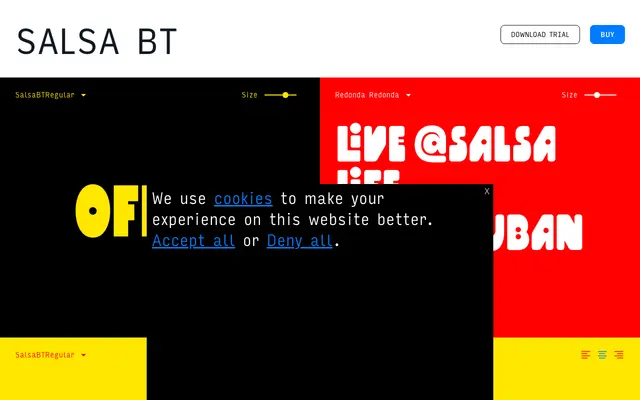
Salsa BT
A single-weight display typeface drawing on Afro-Cuban and Latin music vernacular, with broad Latin and Cyrillic script coverage.
Built around the visual language of Afro-Cuban jazz and 1970s Latin music graphics, it carries a warm, rounded character suited to posters, record sleeves and editorial headings. Only one weight is offered, which keeps the design focused but limits its flexibility. The character set is unusually broad for a display face, covering Latin Extended, Cyrillic and a handful of Greek characters.
A single-weight display typeface with rounded, expressive letterforms inspired by Afro-Cuban and Latin music culture, placing it firmly in the display category with a vernacular, poster-oriented character.